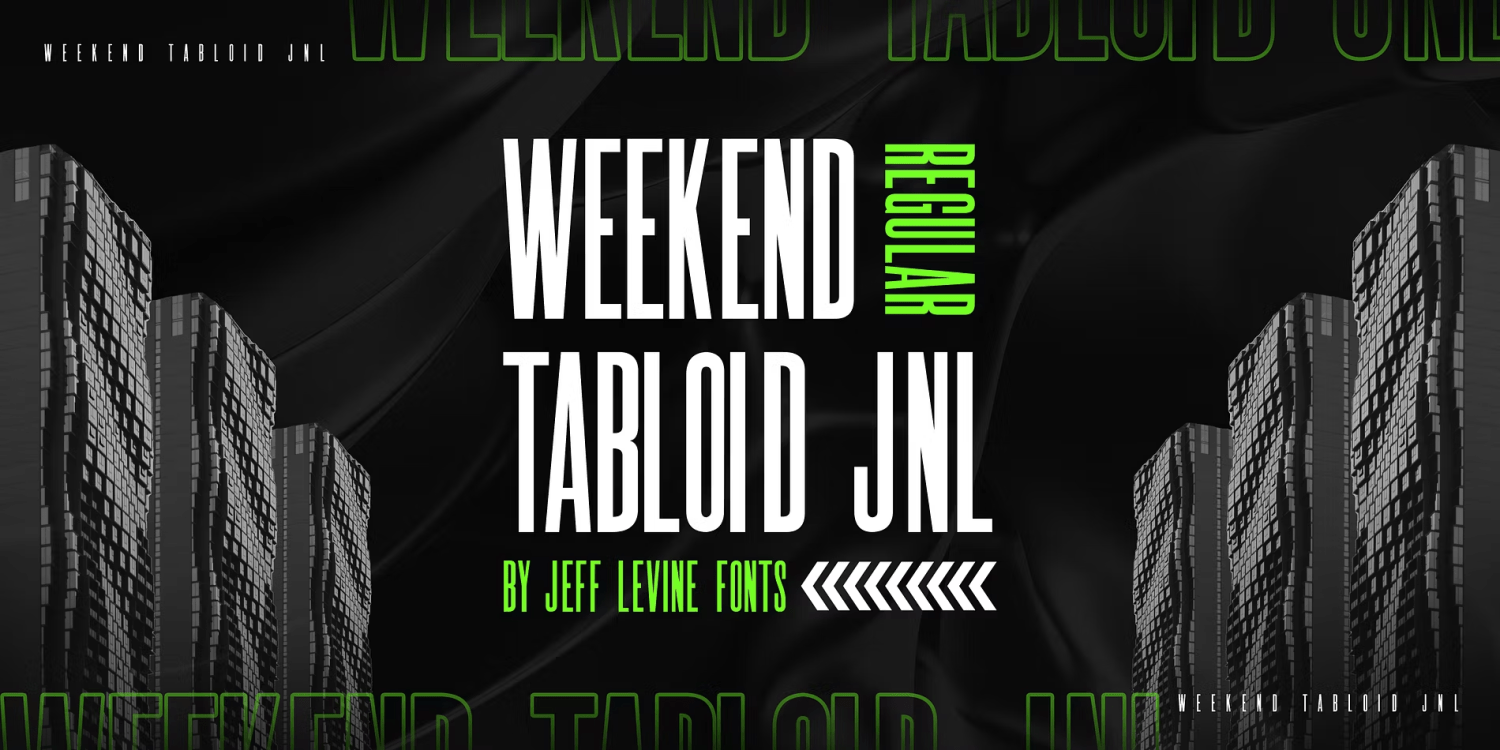
Weekend Tabloid
Weekend Tabloid JNL is a classic sans serif wood type design that found its way into the setting of newspaper headlines during the pre-electronic age of publishing.
Weekend Tabloid JNL Regular by Jeff Levine Fonts